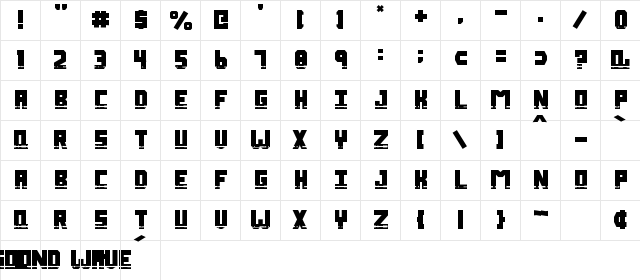
Sound Wave Regular
| Designer | Joseph Dawson |
Design Context for Sound Wave Typeface
Sound Wave is a composed and adaptable typeface that performs quietly and consistently across a wide range of design contexts.